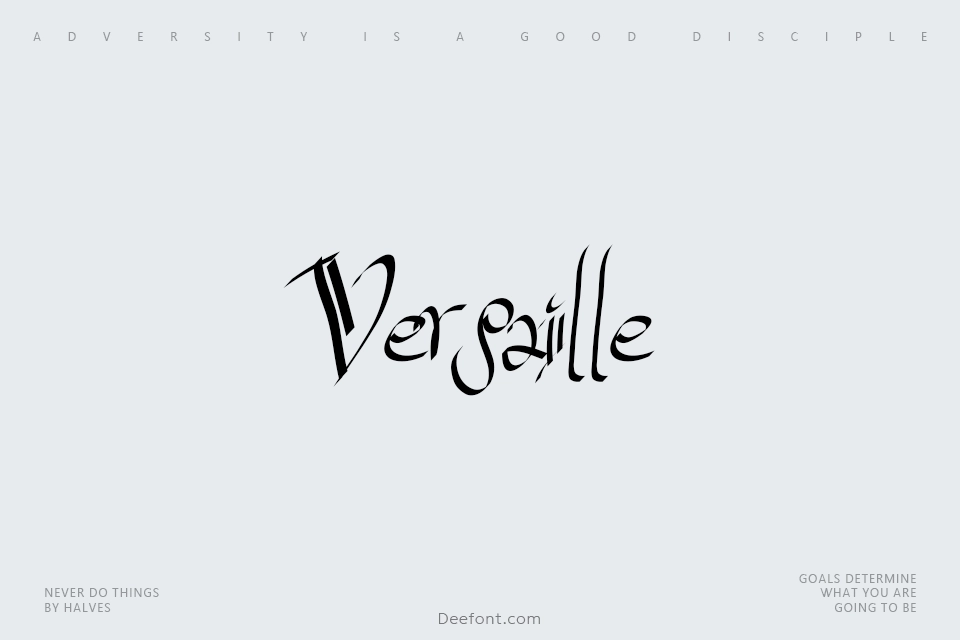
Versaille Font
Versaille is an elegant and sophisticated script typeface created by Gaelleing that brings a touch of classical charm to your design projects. With its flowing letterforms and refined strokes, this font delivers graceful elegance perfect for decorative purposes, invitations, and creative typography. Whether you’re crafting wedding materials, artistic designs, or elegant branding, Versaille combines timeless beauty with contemporary appeal, making it an ideal choice for designers seeking ornate yet readable script solutions. The font’s distinctive calligraphic characteristics create visual interest while maintaining legibility in various applications.